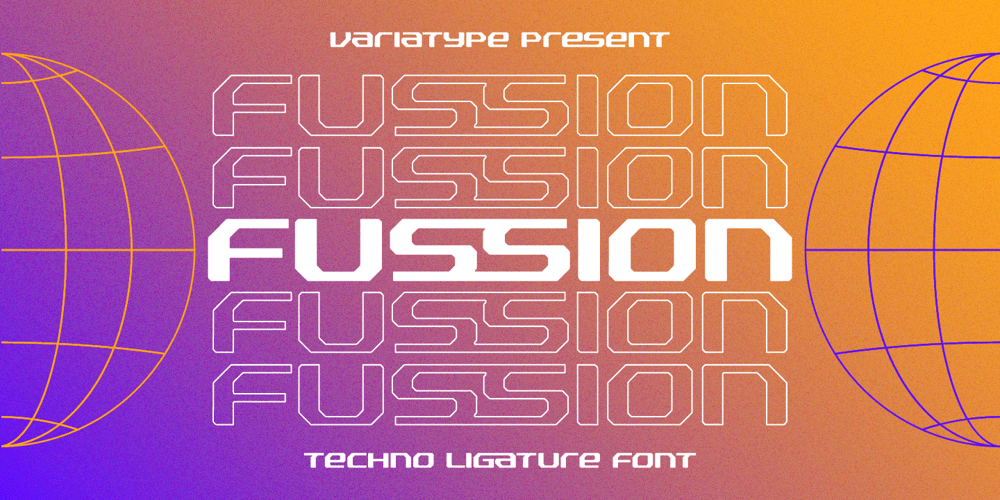
Fussion Font Family was designed by Mukhlis Muhammad and published by Variatype. Fussion contains 4 styles and family package options. Fussion is inspired by modern technology, it’s really suited to your branding project or logotype and more commercial project. With more ligatures to make it flexible to any brand name.FONT FEATURES Additional Accents 66 Languages Kerning Alternates Ligatures SOFTWARE RECOMMENDATION Adobe Photoshop Adobe Illustrator